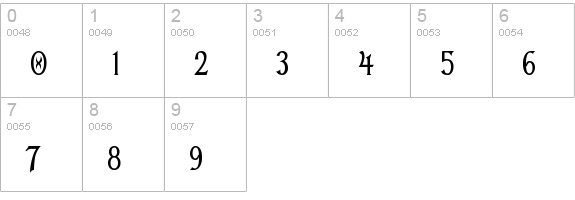
Dumbledor 1 Thin is a delicate, low-contrast variant in the Dumbledor typeface family \xE2\x80\x94 well suited to fashion editorial, minimal branding, and high-contrast display.
Dumbledor 1 Thin font exudes elegance and sophistication with its delicate and refined letterforms. Its slender strokes and graceful curves make it ideal for adding a touch of luxury to any design project. This font radiates a sense of timeless beauty and charm, making it perfect for invitations, branding, and editorial projects. The best part? Dumbledor 1 Thin font is completely free to download at FontsMarket.com. Whether you're a seasoned designer or just starting out, this font is a valuable addition to your collection. Don't miss out on the opportunity to elevate your designs with this exquisite typeface. Download Dumbledor 1 Thin font today and let your creativity soar!